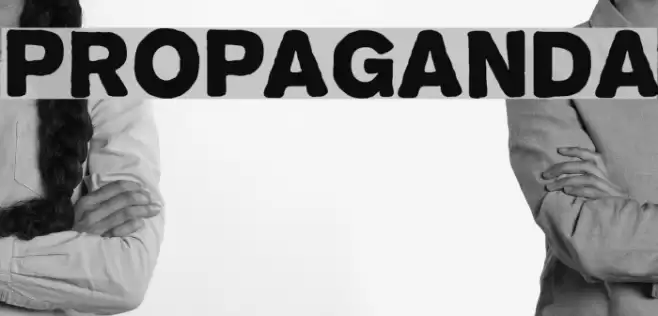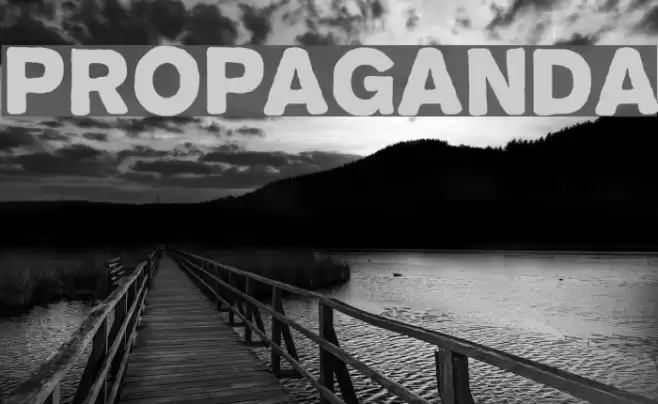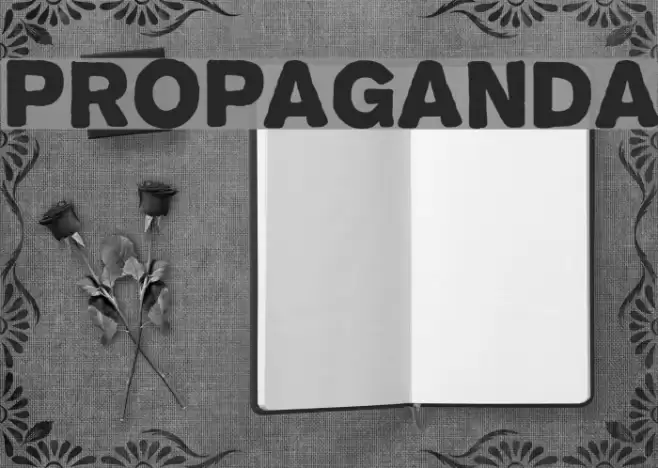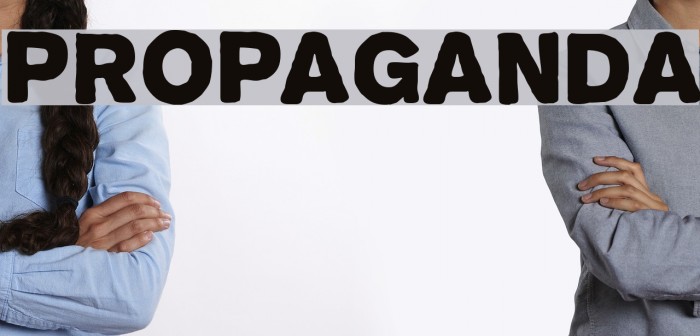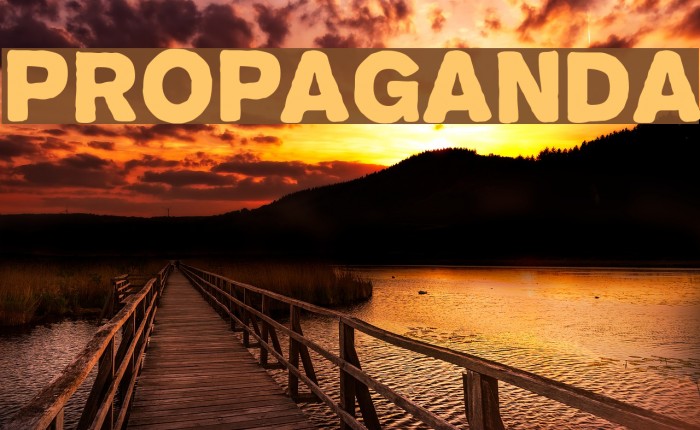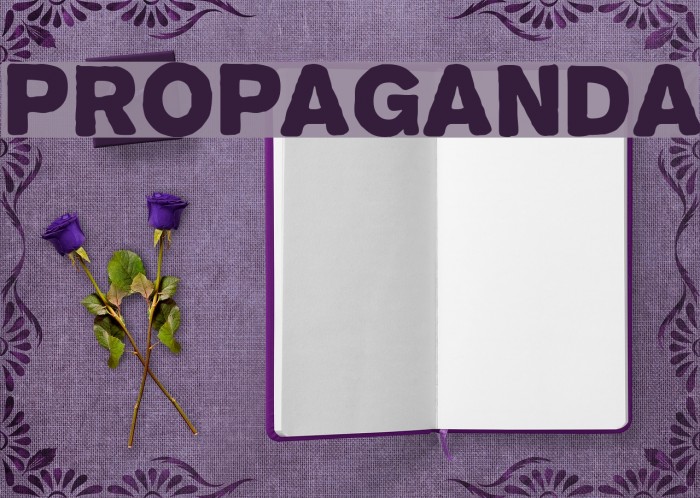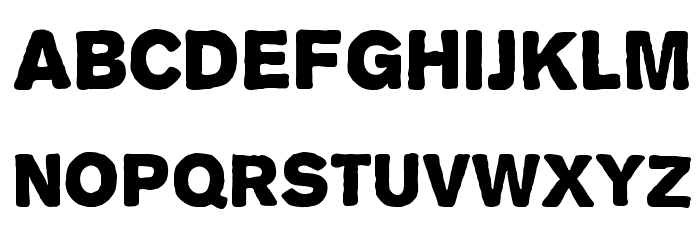
Propaganda Font
Propaganda Description
This font features bold, rounded characters with a slightly distressed appearance, giving it a vintage and rugged feel. The uppercase letters are prominent and impactful, making them suitable for attention-grabbing headlines. The font's style is reminiscent of mid-20th-century propaganda posters, with a strong, authoritative presence. The characters are evenly spaced, contributing to a clean and organized look, while the slight irregularities in the strokes add a touch of uniqueness and personality. The overall design is both functional and decorative, making it versatile for various creative projects.
A bold, vintage-style font with a distressed, authoritative look from Gothic fonts.
- Proposed Projects: Ideal for posters, branding, and editorial design where a strong, vintage aesthetic is desired.
- Overall Style: Vintage
- Use Case: Headlines, Posters, Branding